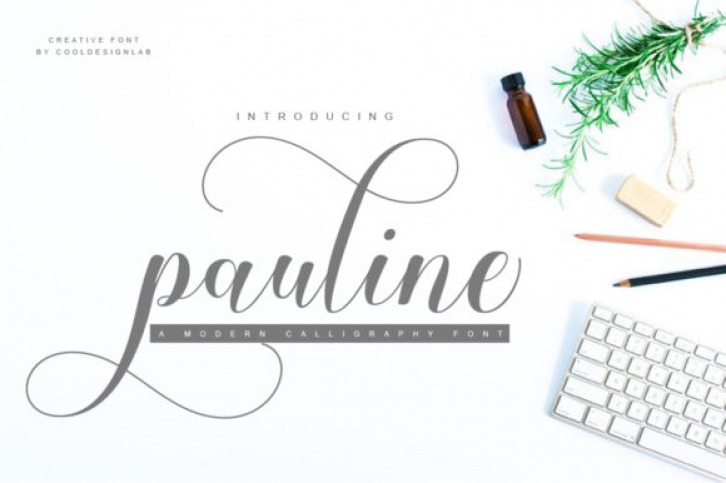
Pauline is a stunning, handwritten calligraphy-style font that features over 480 unique glyphs.
This stunning font is decorated with many decorative characters with long swashes.